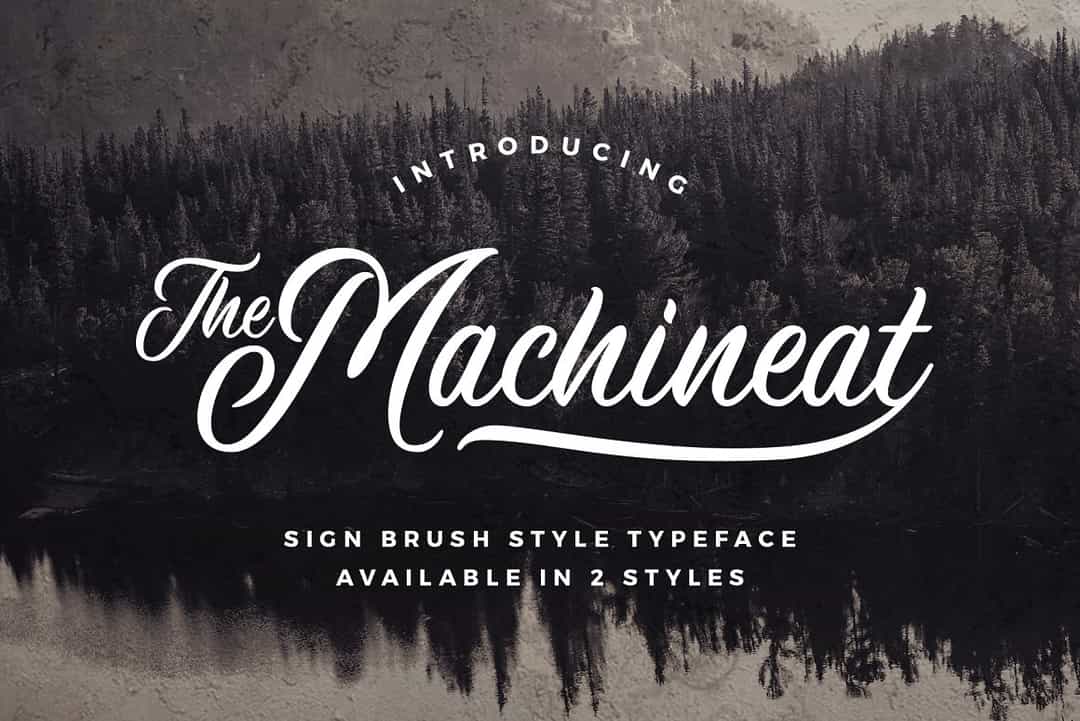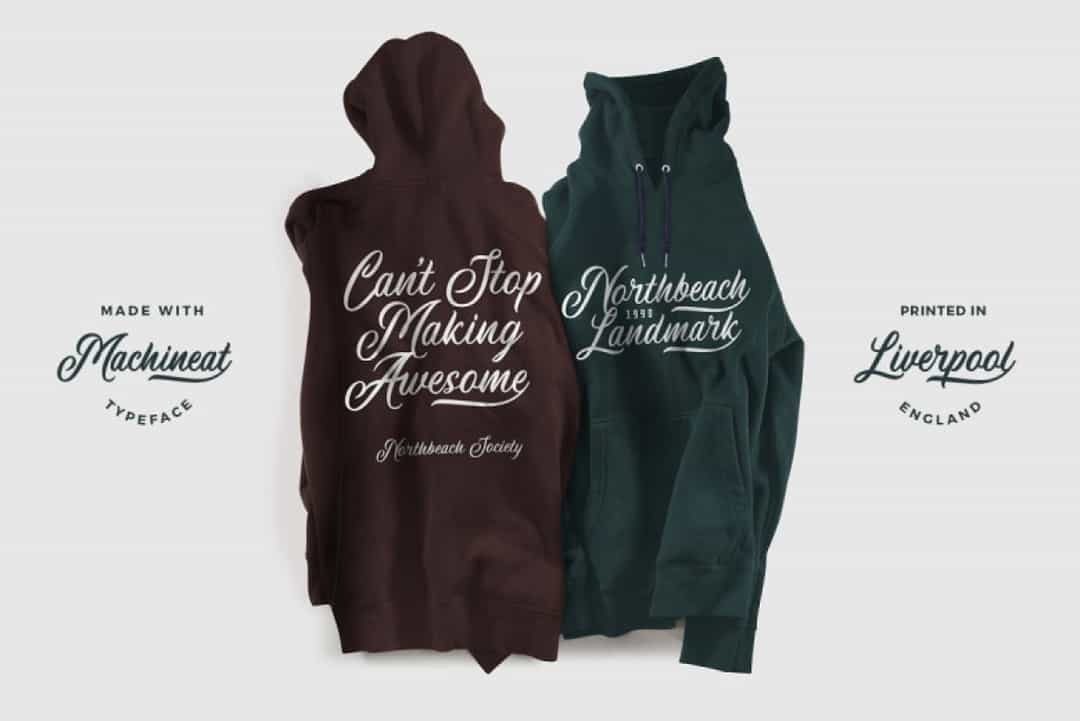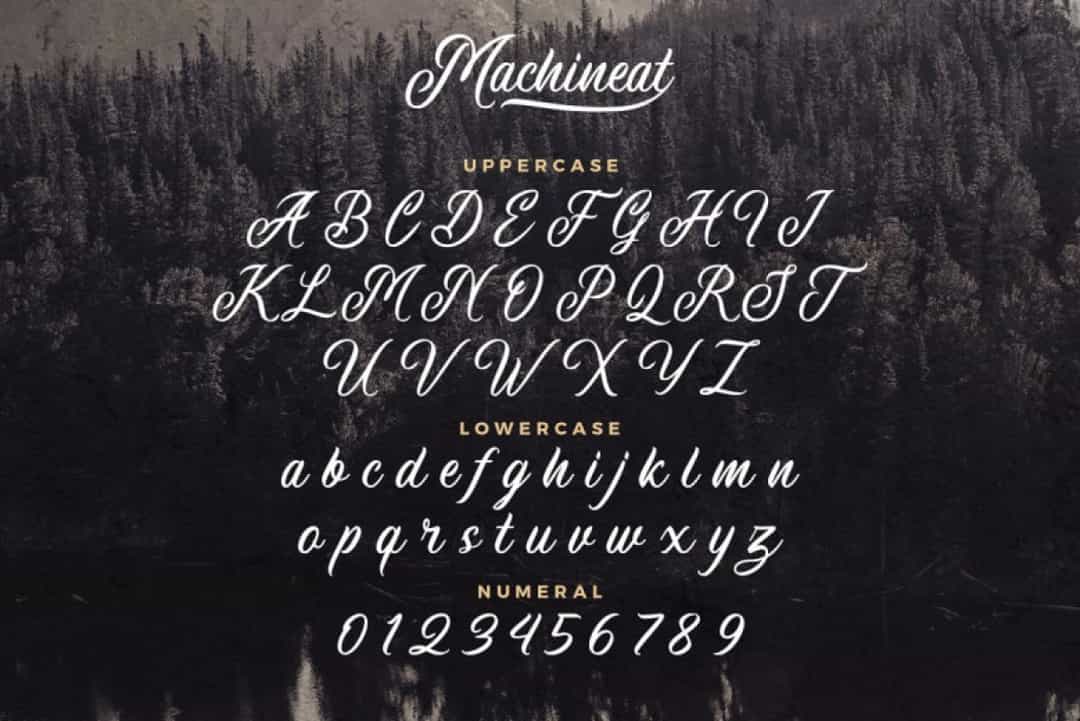
Machineat got the handpainted signs style – so natural, flowing and handpainted – it is perfect for Logotype Letterheads Posters Apparel Label Designs Labels Murals etc.